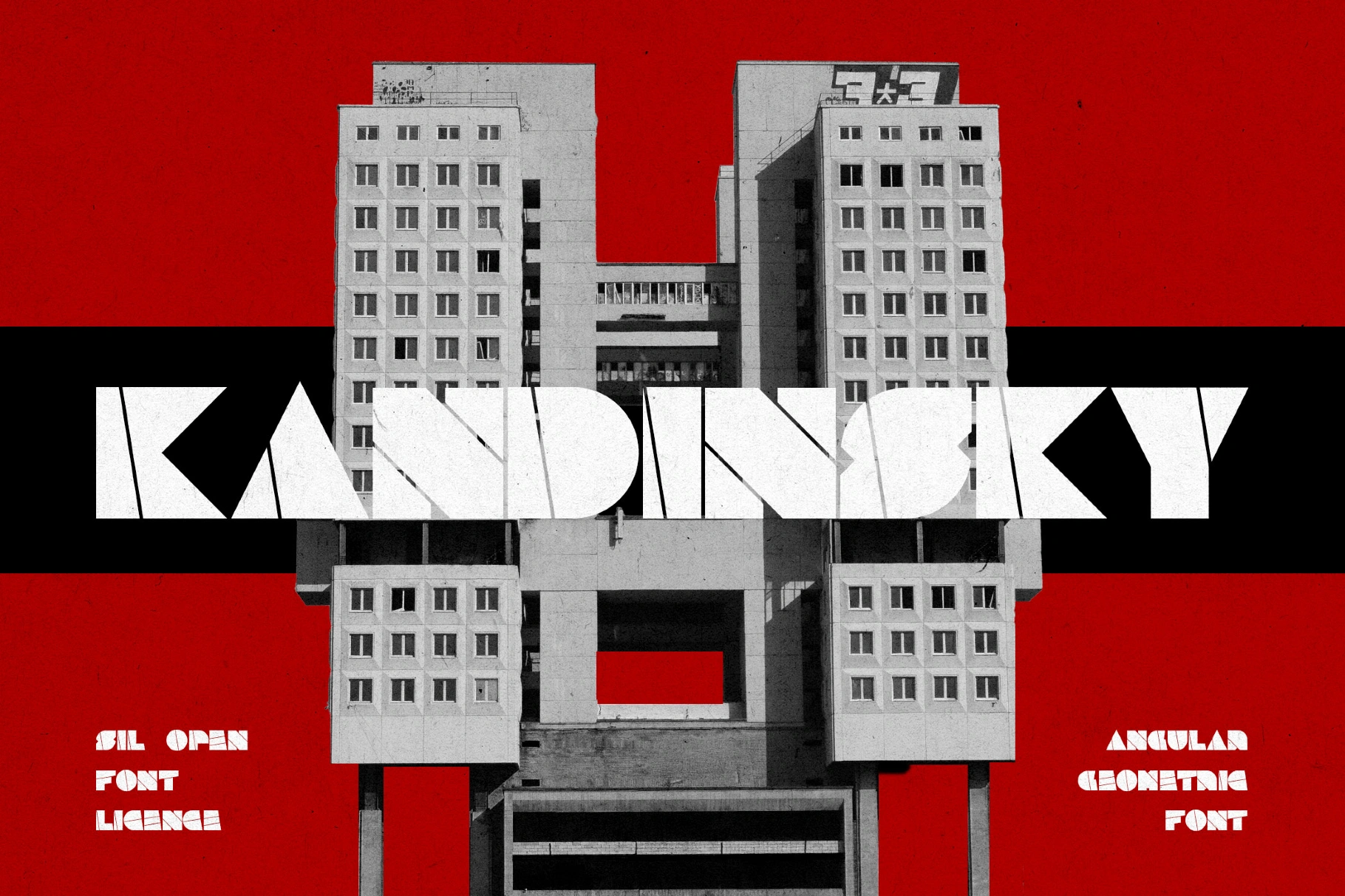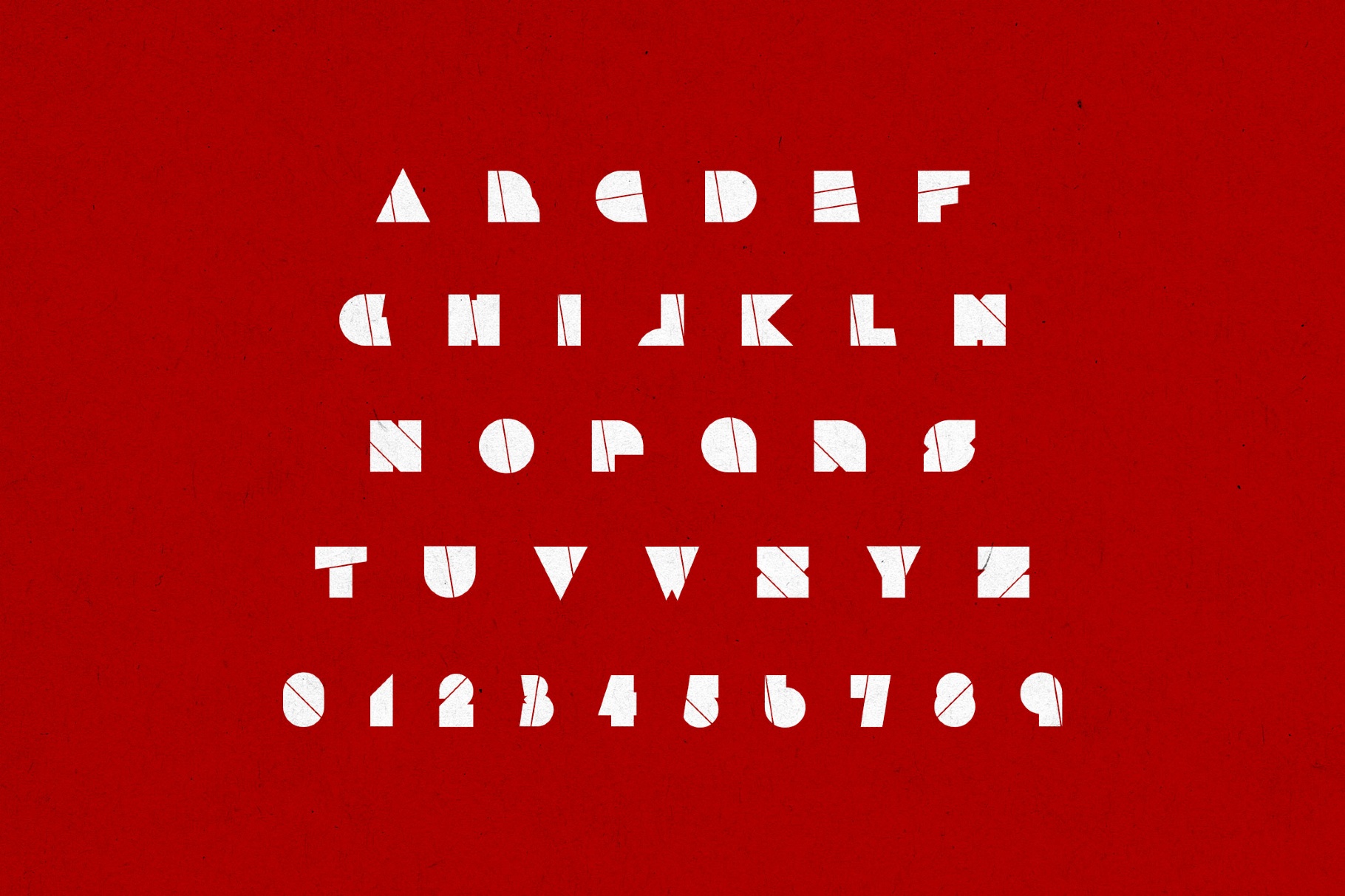
Kandinsky Font
Kandinsky-Heavy
Kandinsky poster font stacks angular geometric forms in overlapping planes, drawing on Russian Constructivism. The playful circles, sharp diagonals, and rhythmic proportions suit experimental branding, gallery or festival posters, exhibition identities, magazine covers, album artwork, editorial headlines, type-led packaging, museum wayfinding, and social media graphics.